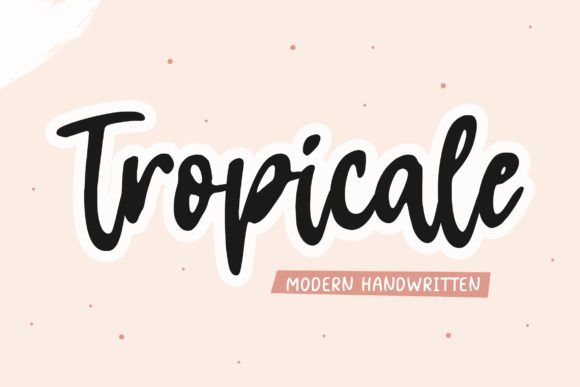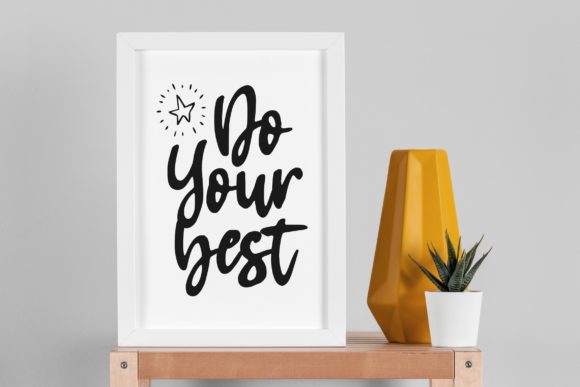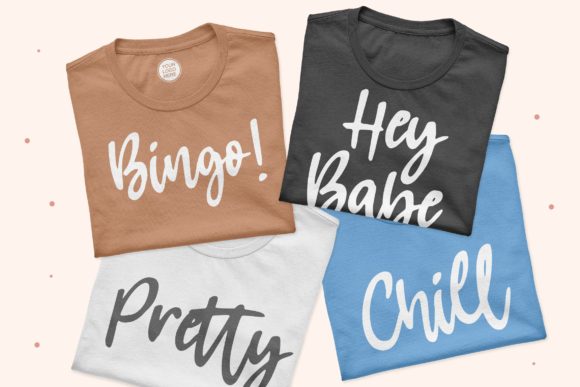
About Tropicale Font
Tropicale is a sweet and cursive handwritten font. This gentle font will look gorgeous on a variety of design ideas. It will add a joyful and romantic touch to each of your projects!